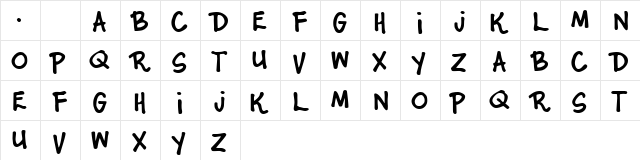
Junior Star Regular
Design Context for Junior Star Typeface
Junior Star is a composed and adaptable typeface that performs quietly and consistently across a wide range of design contexts.